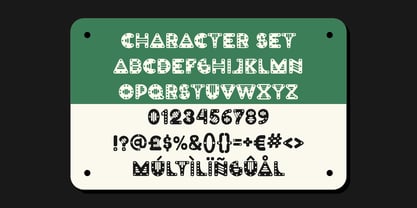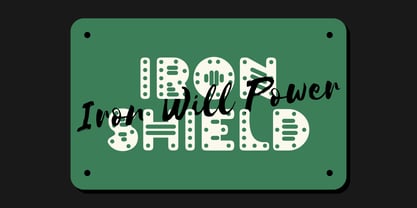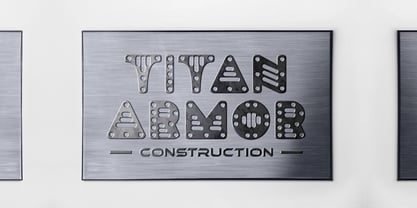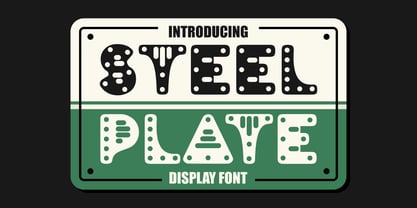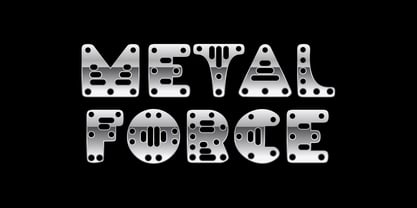
Steel Plate
by Shanaf
The Steel Plate Font Family was designed by Yesie Erma Yunita and published by Shanaf. Steel Plate contains 1 styles. More about this family
Steel Plate is a high-impact display font forged with the essence of raw industrial power. Inspired by the look of mechanical perforated panels and steel construction plates, each character is meticulously designed with rivet-like holes and geometric cuts that emulate structural integrity. The uppercase set commands attention with its bold, engineered forms and sturdy, wide-set letters. Its uniform stroke weight and high-contrast cutouts establish a sense of balance between utility and creative grit. This font effortlessly evokes a heavy-duty, masculine vibe ideal for industries ranging from construction branding to sci-fi or military visuals.
Whether it's used on posters, signage, or merchandise packaging, Steel Plate instantly reinforces a message of strength, durability, and innovation. Its clean but unconventional style supports modern branding while making a distinct visual statement. With multilingual support and a full set of special characters, it’s also technically versatile. Pair it with chrome gradients or industrial textures, and Steel Plate will elevate your design with a rugged yet refined edge.